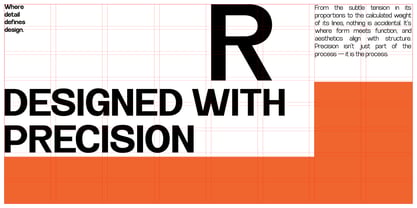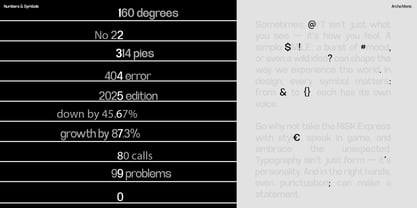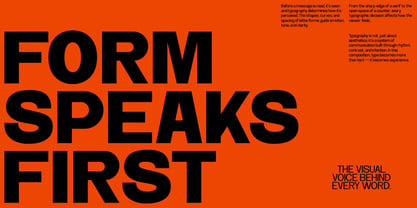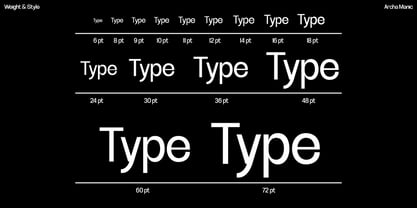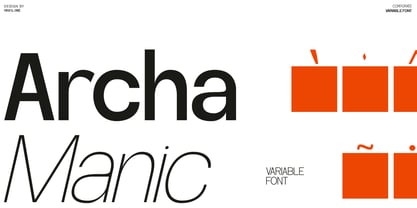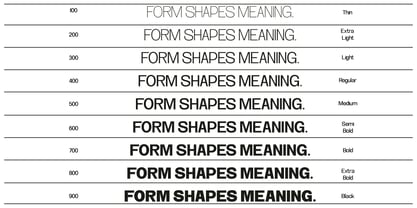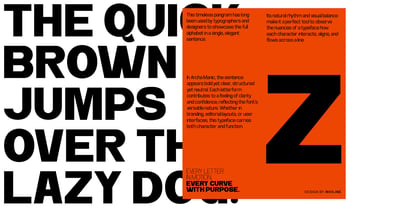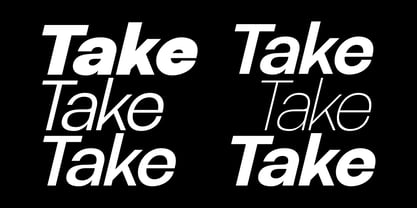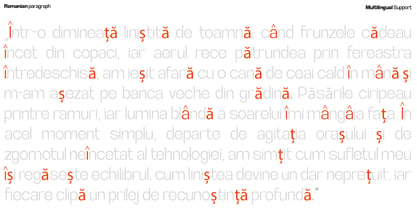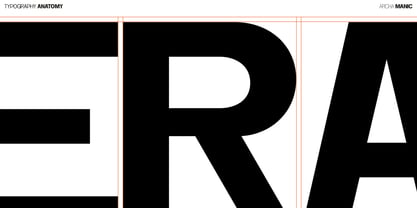
Archa Manic
by Inviline
The Archa Manic Font Family was designed by Virgiawan Listanto and published by Inviline. Archa Manic contains 18 styles and family package options. More about this family
Archa Manic is a clean, structured, and neutral sans-serif variable font crafted for clarity and confidence across modern design systems. Built with balanced proportions, precise curves, and a contemporary corporate character, it adapts seamlessly from thin to black weights, giving you full control over expression while maintaining visual harmony. What You Get: a complete variable font with weight range 100–900, uppercase and lowercase letters, numerals, punctuation, symbols, multilingual support, and refined spacing engineered for both print and digital environments. Perfect font for branding, corporate identity, editorial layouts, UI/UX interfaces, presentations, minimalist posters, and high-impact headlines where precision, flexibility, and timeless simplicity matter most.
Designers: Virgiawan Listanto
Foundry: Inviline